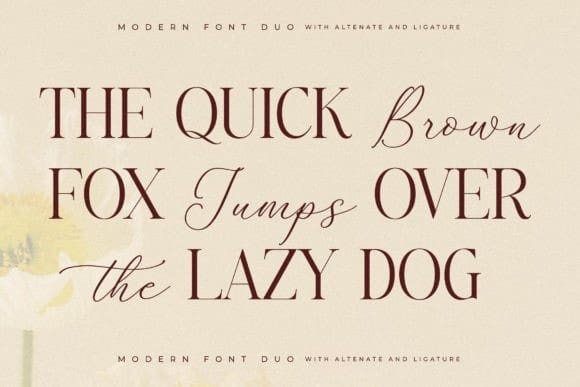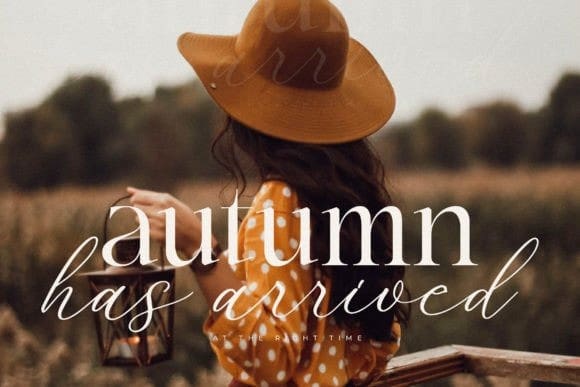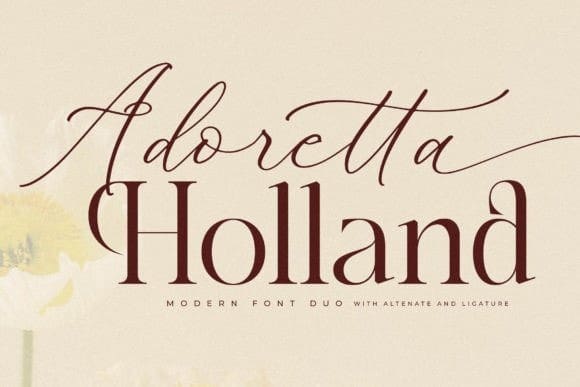
Adoretta Holland Font Duo
Adoretta Holland Font Duo is a stylish and modern font duo that pairs a classic serif with an elegant script. The serif font exudes timeless sophistication, while the script font adds a touch of fluidity and charm. This duo is perfect for luxury branding, invitations, and editorial design. Adoretta Holland’s versatility makes it a must-have for designers seeking a blend of classic and contemporary aesthetics.